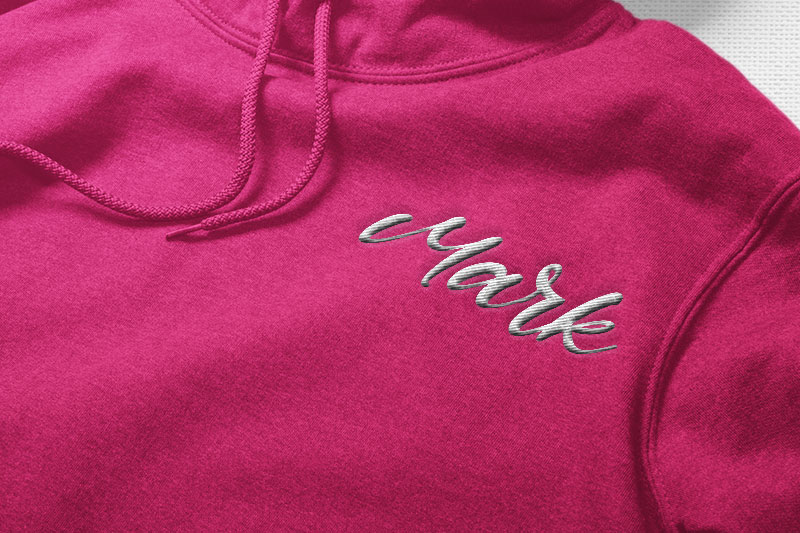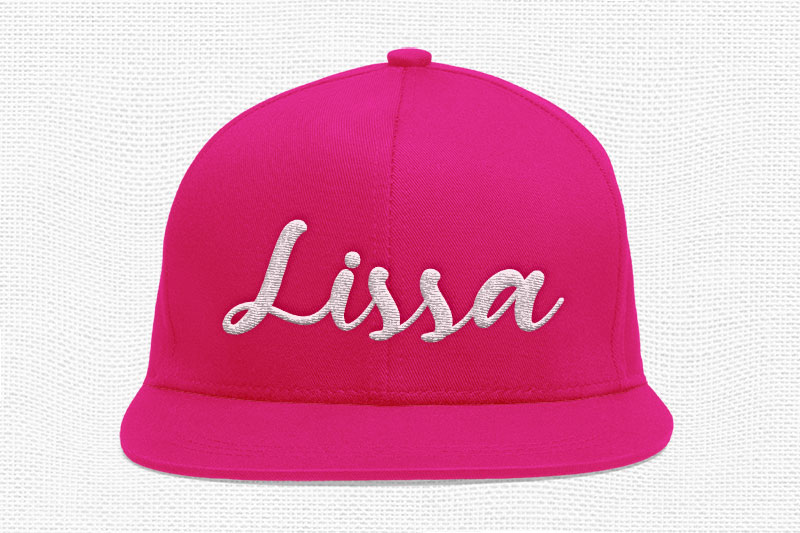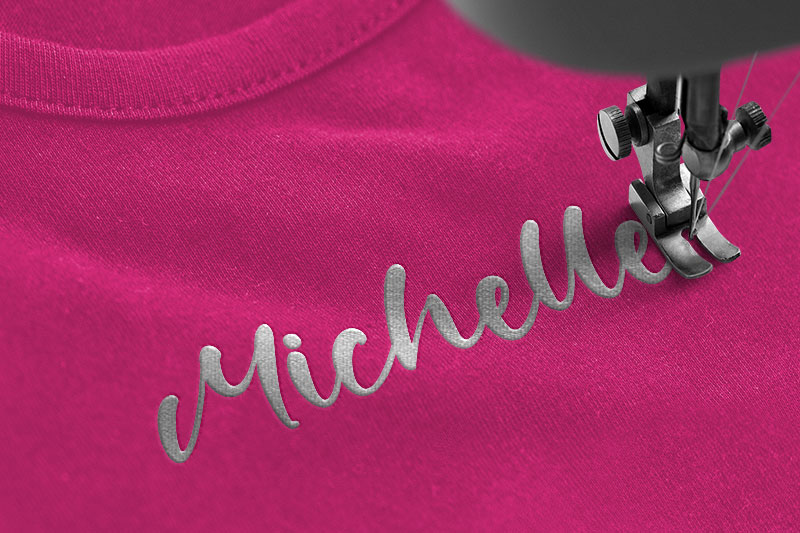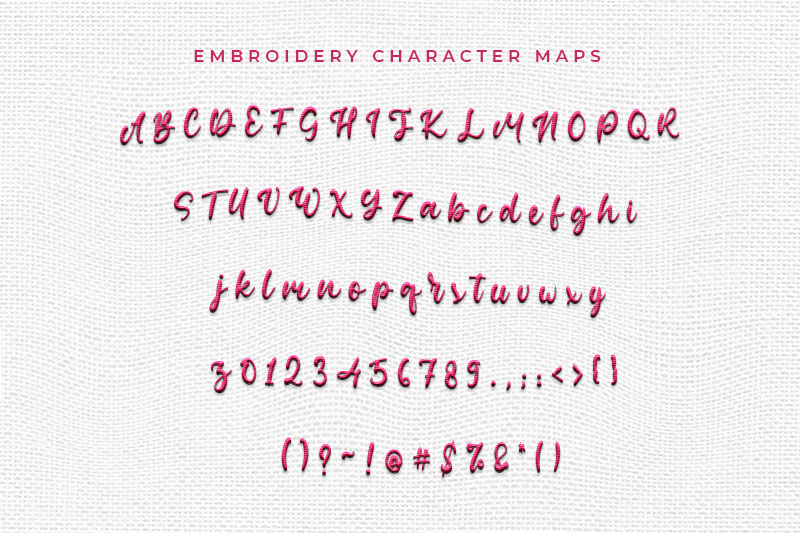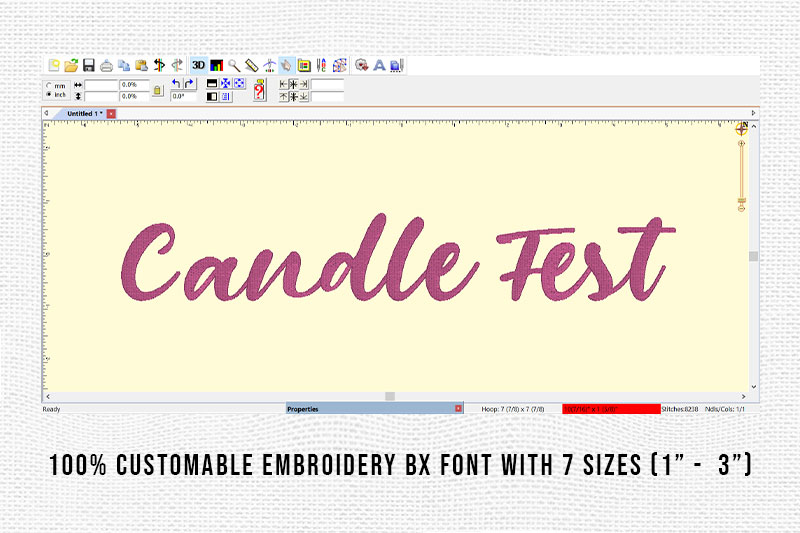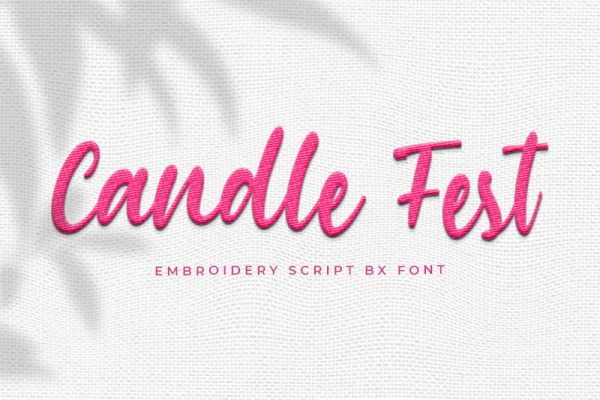
Kong font is back with a new type of embroidery font. Candle Fest Embroidery Script Font was designed to increase the variety of options available to users of the Embroidery font. Of course, this is an advantage for the user, because the font you use is unique and modern.
Candle Fest Embroidery Script Font has characteristics like continuous Latin writing. It looks aesthetic, elegant, and smooth. Candle Fest Embroidery Script Font is also suitable to be called a modern font. The appearance is advisable to be combined with a variety of contemporary products.
Given how interesting the characteristics are, Candle Fest Embroidery Script Font is one of the best Christmas fonts when used in clothing item designs such as t-shirts, jackets, and hoodies. In addition, it is suitable to be combined with several products, such as hats, souvenir bags, and handmade products. Font Kong provides Embroidery font for digital and print use. Both of them will not eliminate the element of beauty and aesthetics evoked by the Candle Fest Embroidery Script Font.
We can apply Candle Fest Embroidery Script Font digitally to several things, such as digital party invitations that will be sent to guests. This font will give the impression of elegance and seriousness that the party maker wants to convey. This will attract interest and add to the impact of readers of this font.